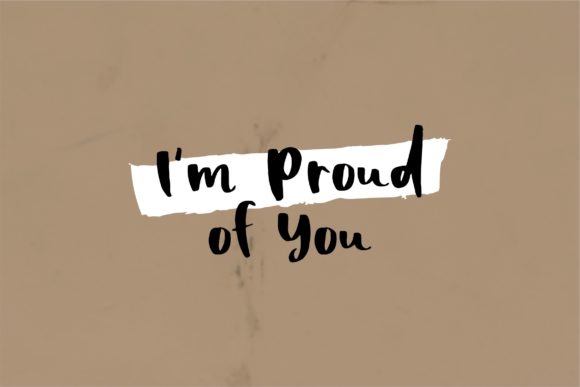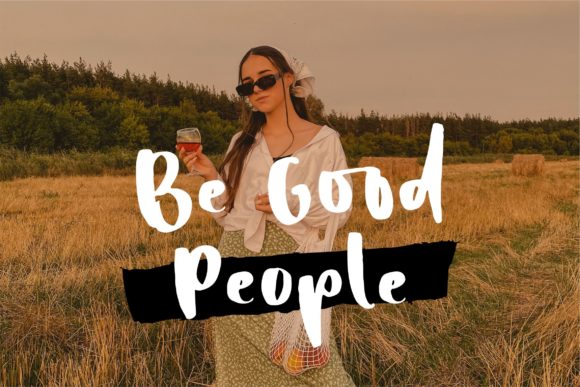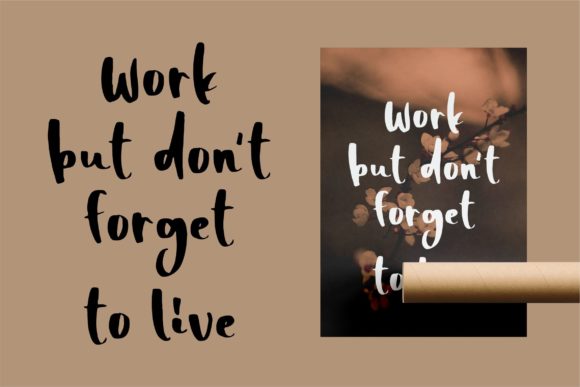
Introduction to Satlar Font
Satlar is a free-flowing script font created for packaging products, invitation cards, flyers, mockups, event posters, and anything else that requires high-quality vibes.
It has a beautiful and balanced character, that fits well with the large design pool .
Why Choose Satlar Font?
Satlar Font offers exceptional quality and versatility, making it a valuable addition to your design toolkit. Whether you’re creating for personal projects or commercial use, Satlar Font delivers professional results.